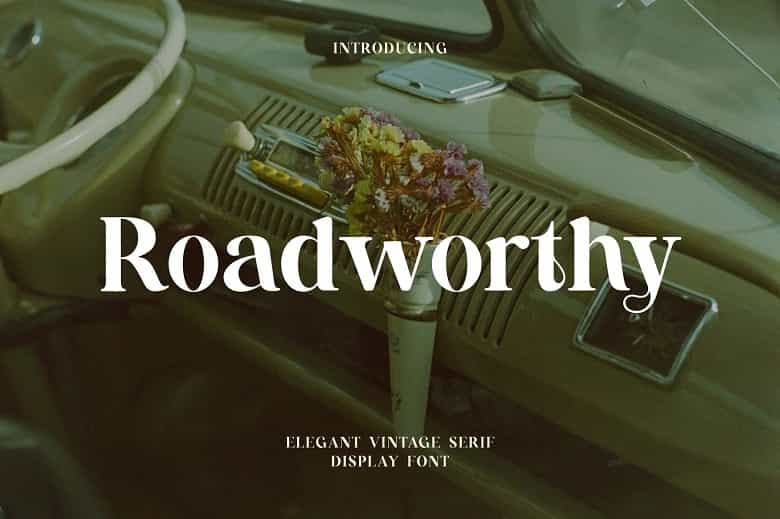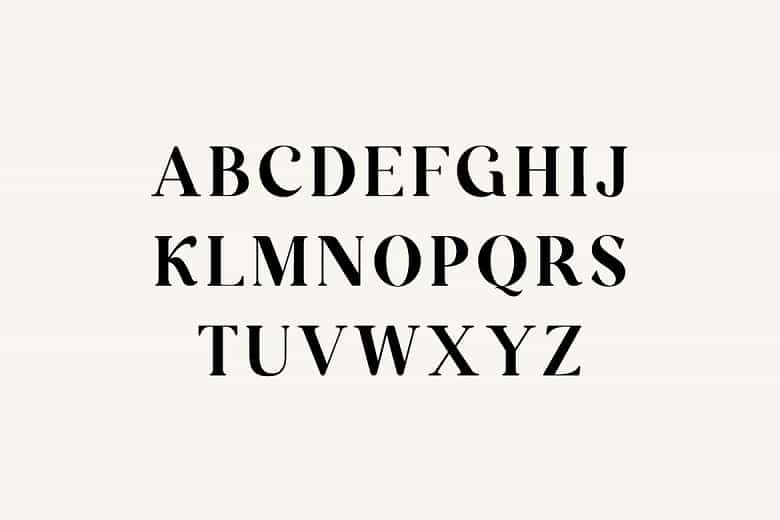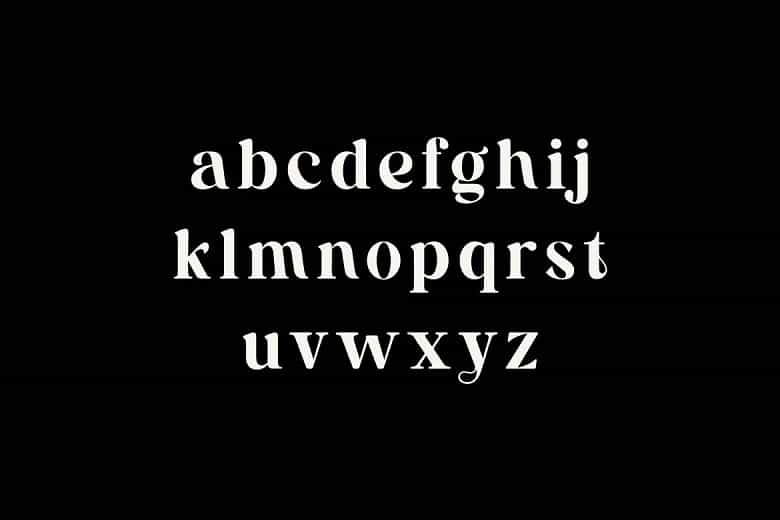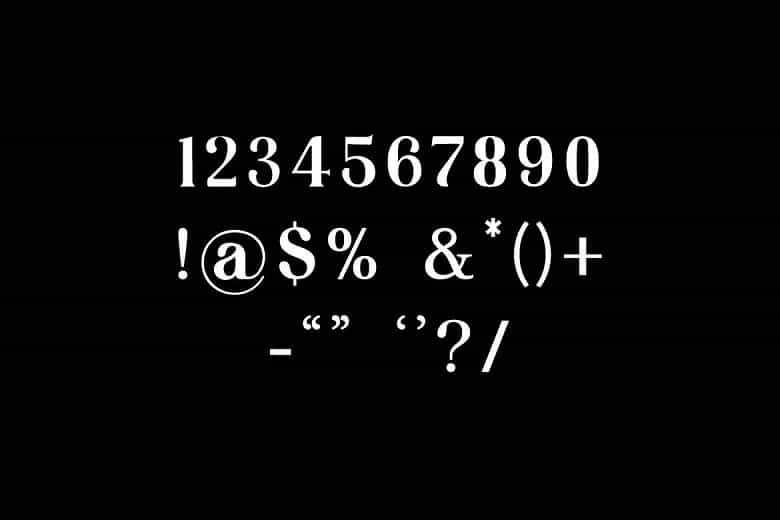
Roadworthy Serif Font’ which is elegant, stylish, professional and contemporary font. This font is suitable for a various projects like signature, stationery, logo, wedding, quotes typography, magazine or book covers, web headers, clothing, branding, packaging design etc.